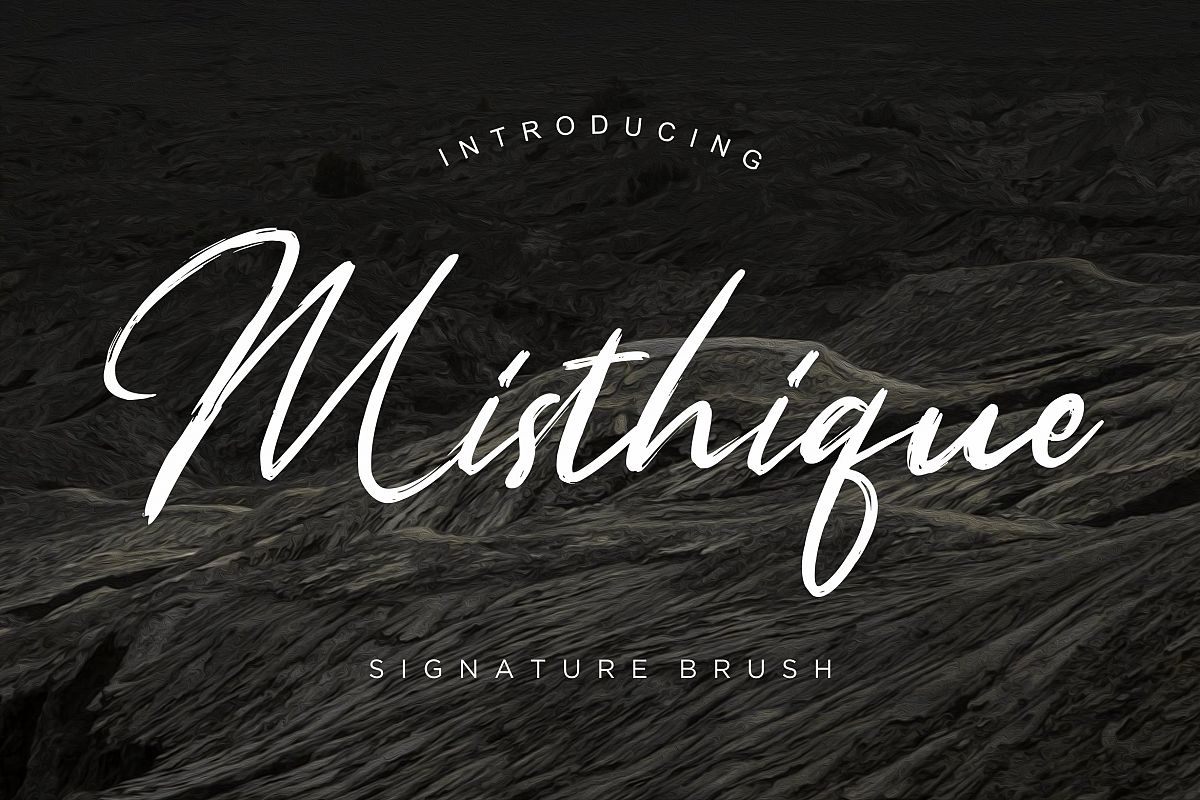
Misthique Signature Brush
Misthique
Misthique is a signature brush font with rough and natural movement will make your project looks awesome.
Misthique is perfect for branding projects, logo, wedding designs, social media posts, advertisements, product packaging, product designs, label, photography, watermark, invitation, stationery and any projects that need handwriting taste.
• Tons of glyphs
• Fonts include multilingual support for; ä ö ü Ä Ö Ü ß ¿ ¡
Misthique Signature Brush